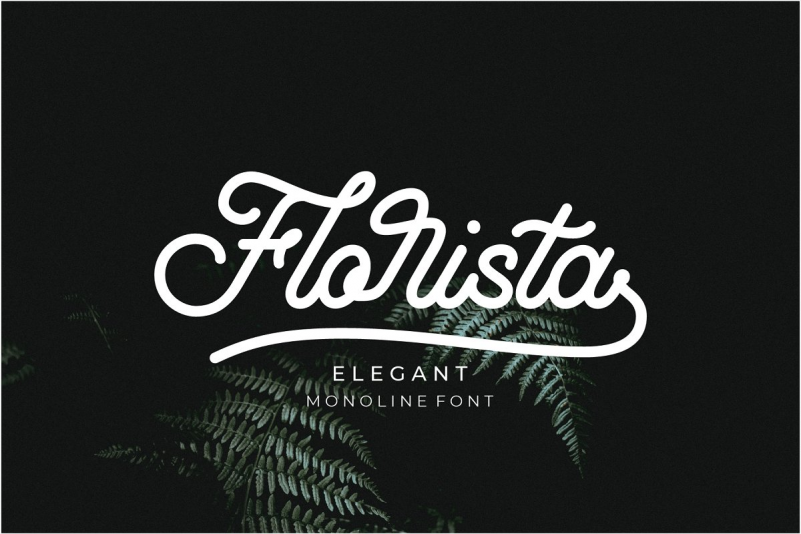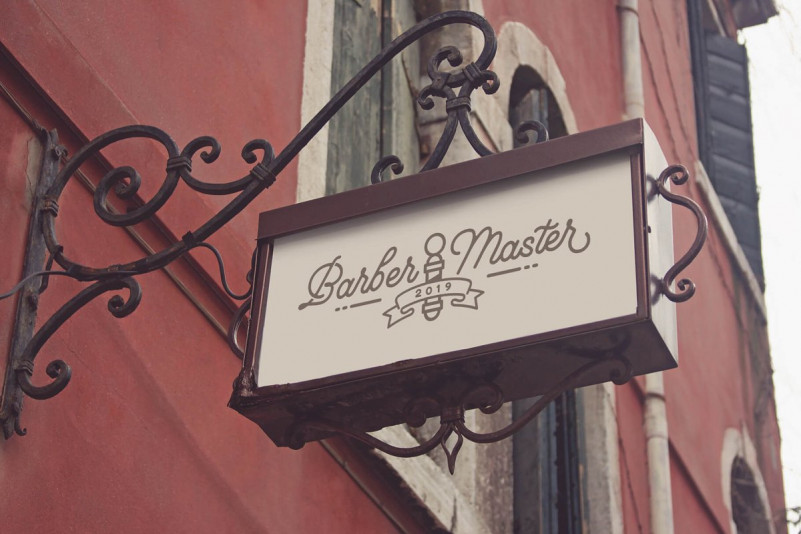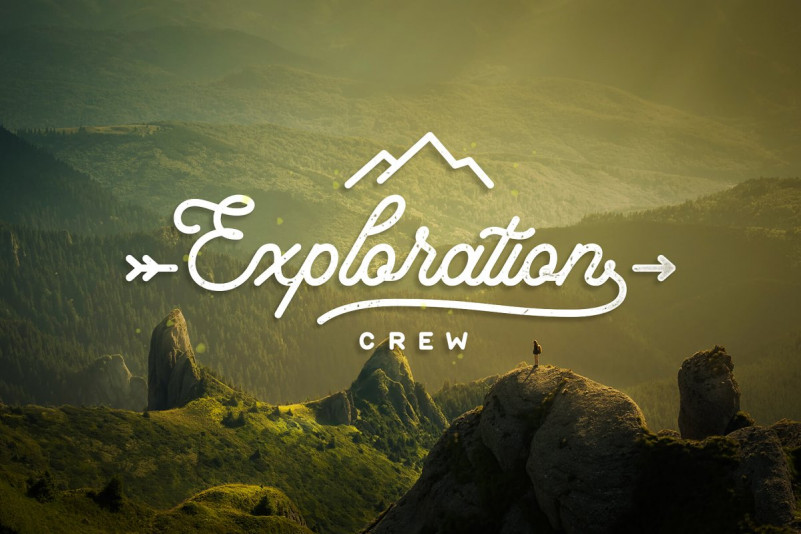
Florista Font
Introducing Florista, elegant monoline font. A seamless clean script font. Came up with alternates, ligatures, contextual alternates and ligature end swash ( type s1, s2, s3 ) . This font will nail your any design projects. Grab it now !